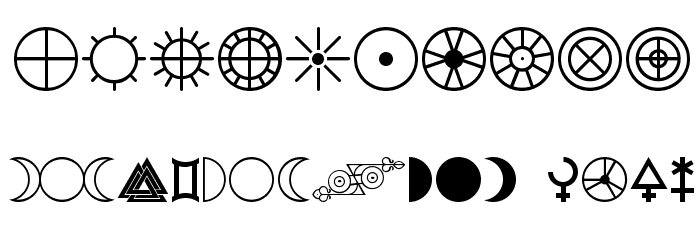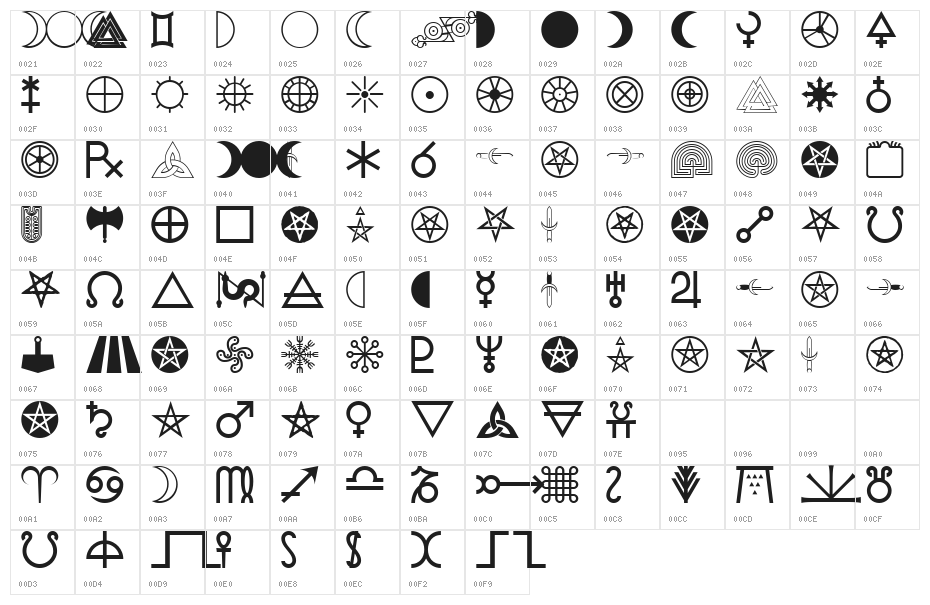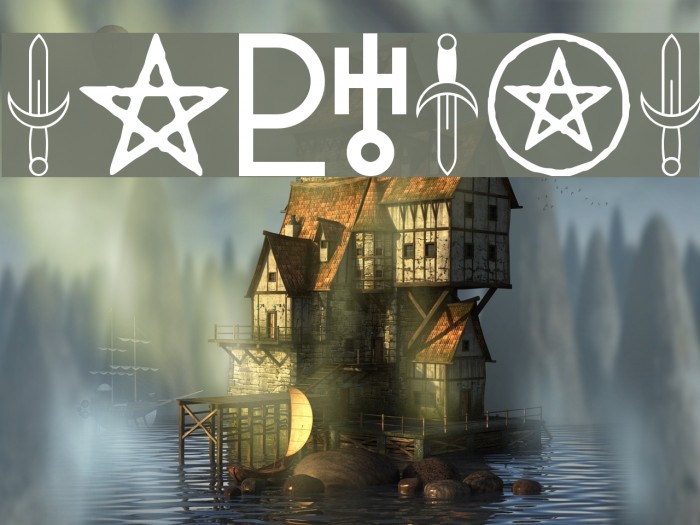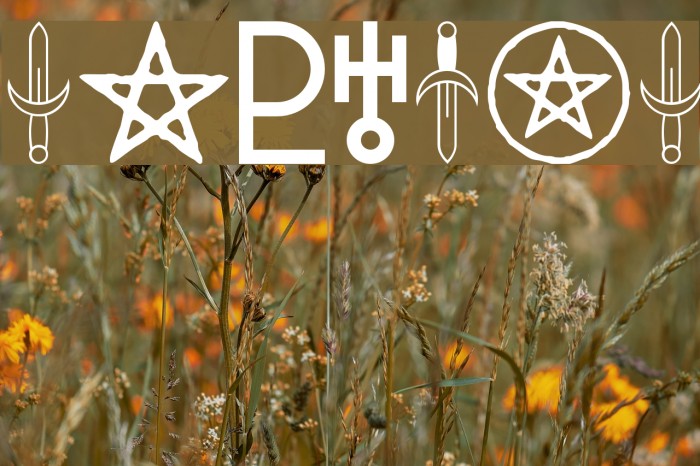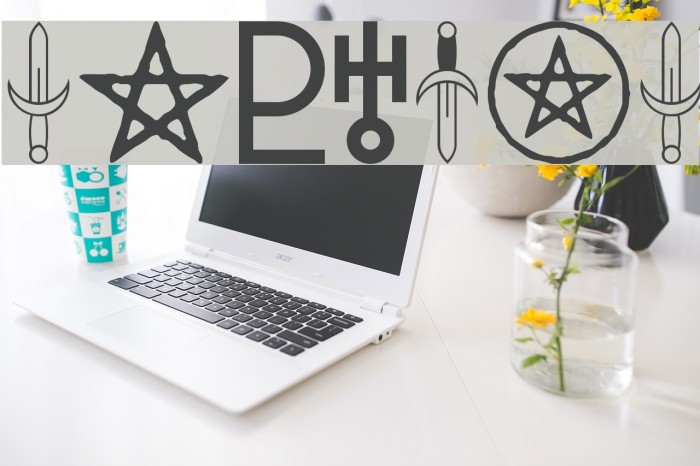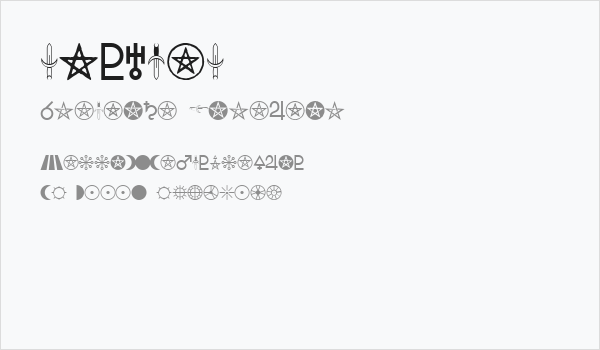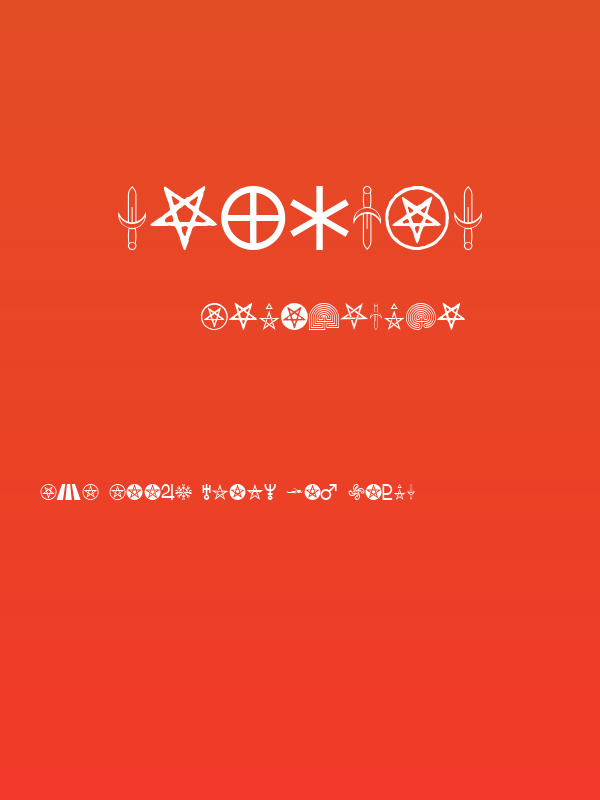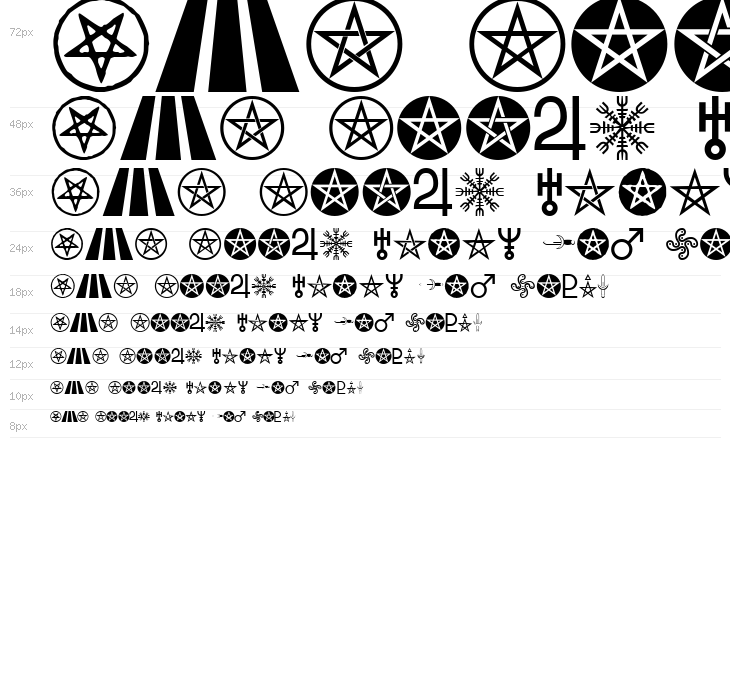
Symbats Font
Symbats Description
A decorative symbol font featuring a variety of esoteric, astrological, alchemical, and occult-inspired glyphs, including pentagrams, planetary symbols, geometric shapes, and mystical icons. The glyphs are bold, mostly monoline, and highly graphic, with both filled and outlined styles.
| Overall Style | Decorative, Mystical, Esoteric |
| Use Case | Logos, Posters, Decorative elements, Themed graphics |
| Proposed Projects | Tarot cards, book covers, posters, mystical branding, occult-themed designs, educational materials on symbolism. |